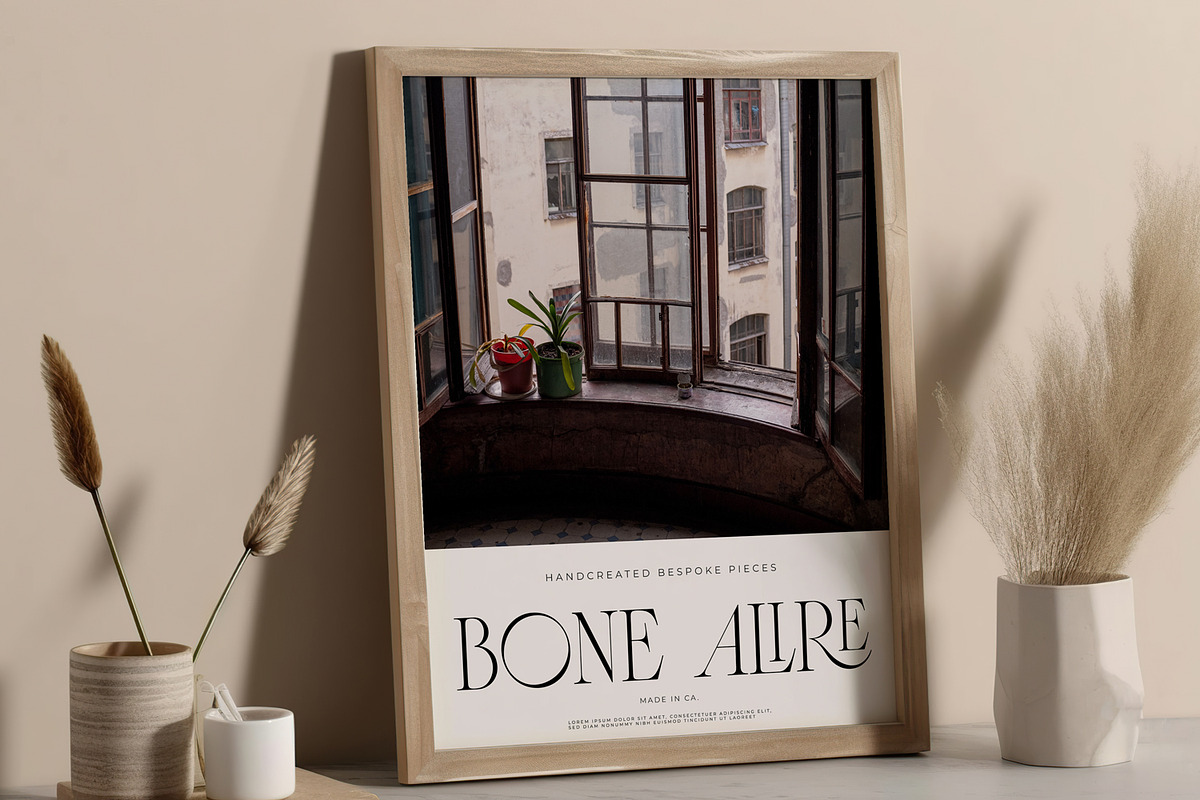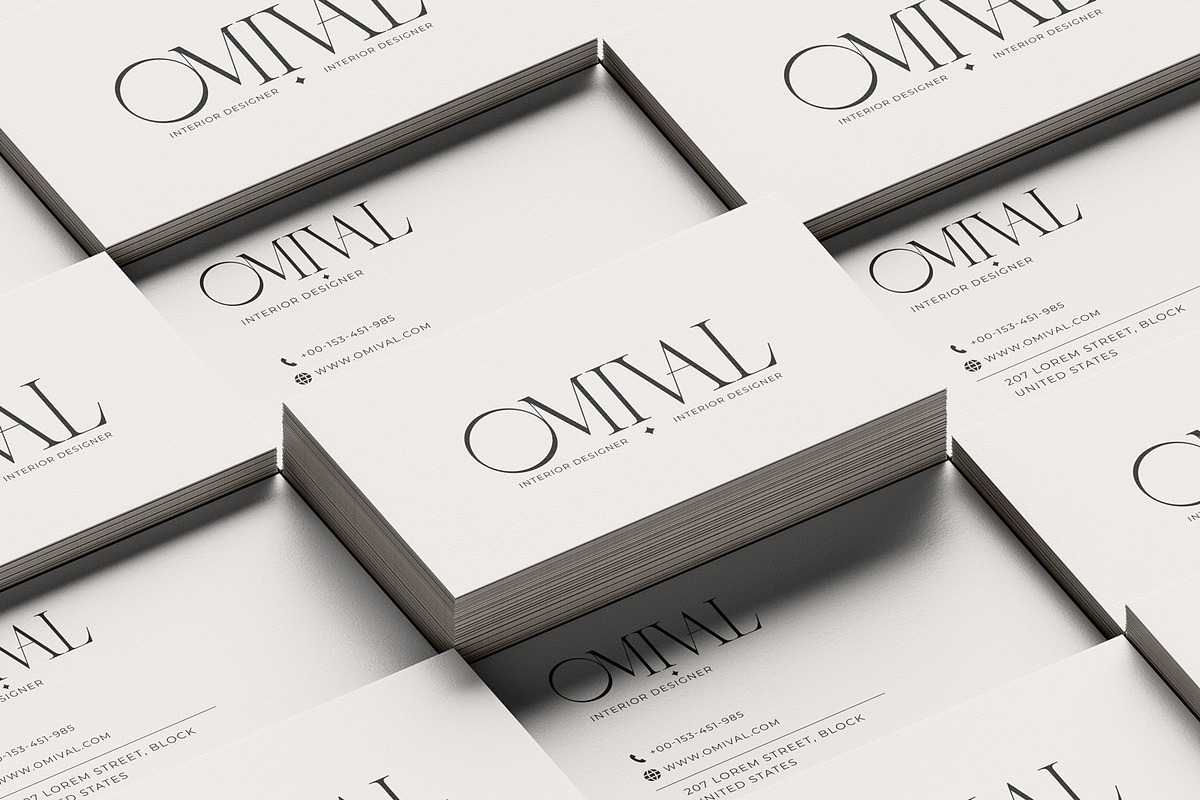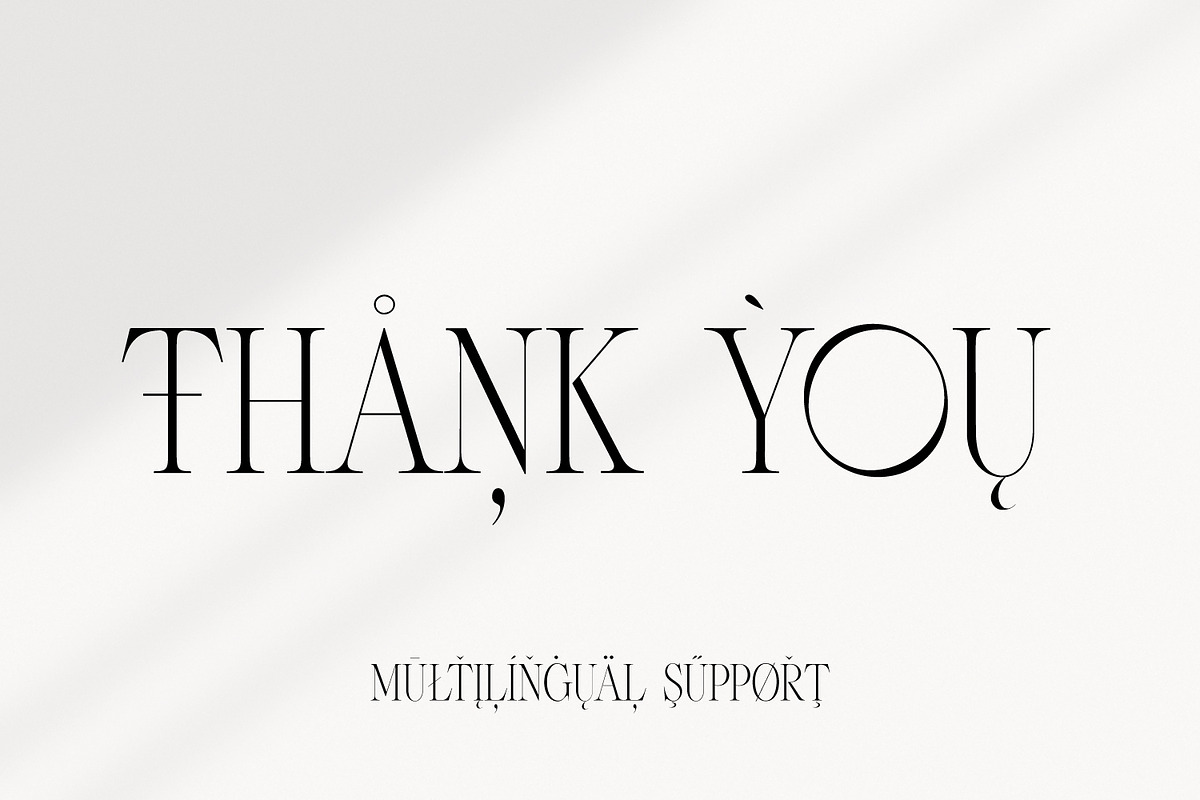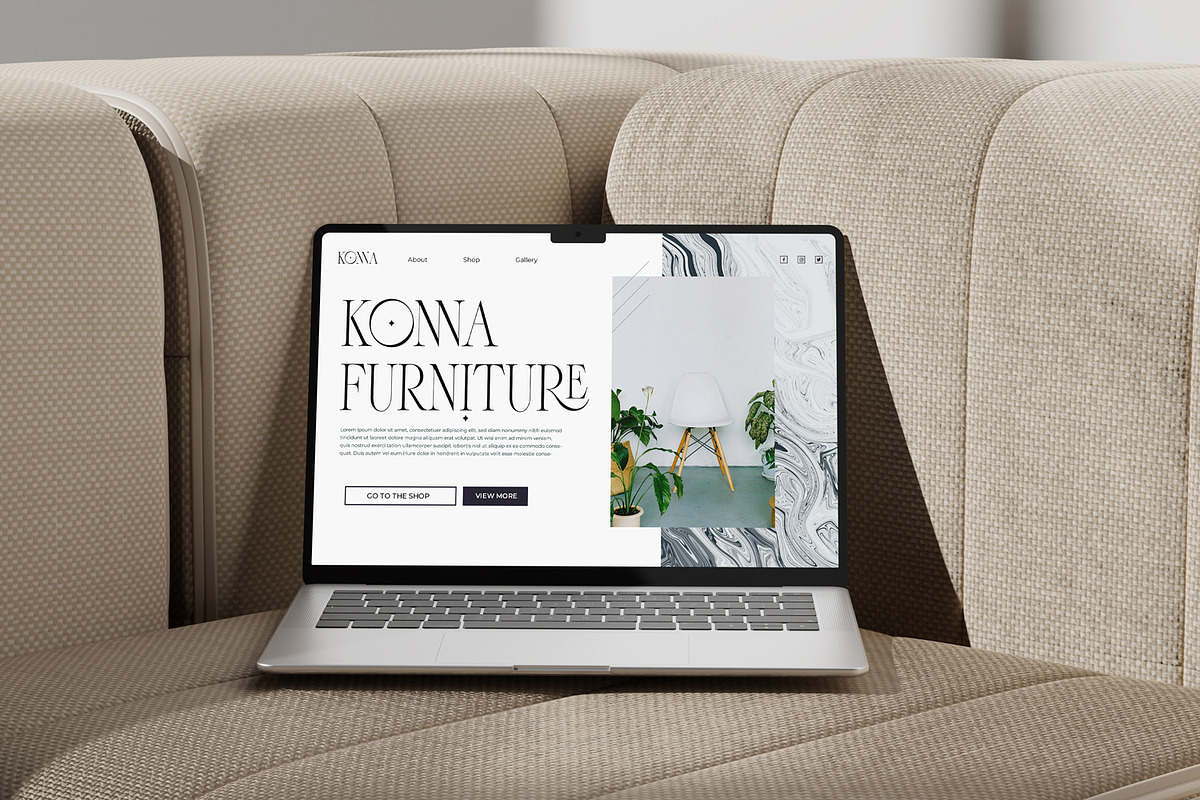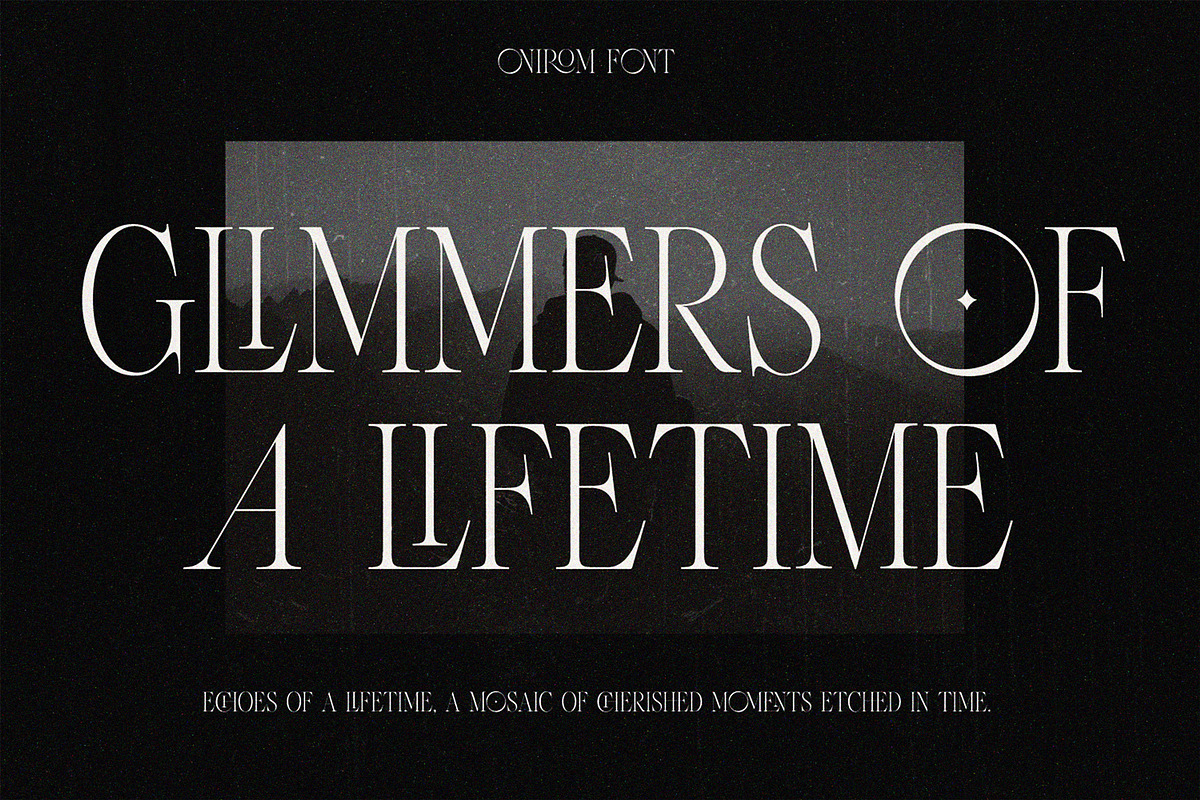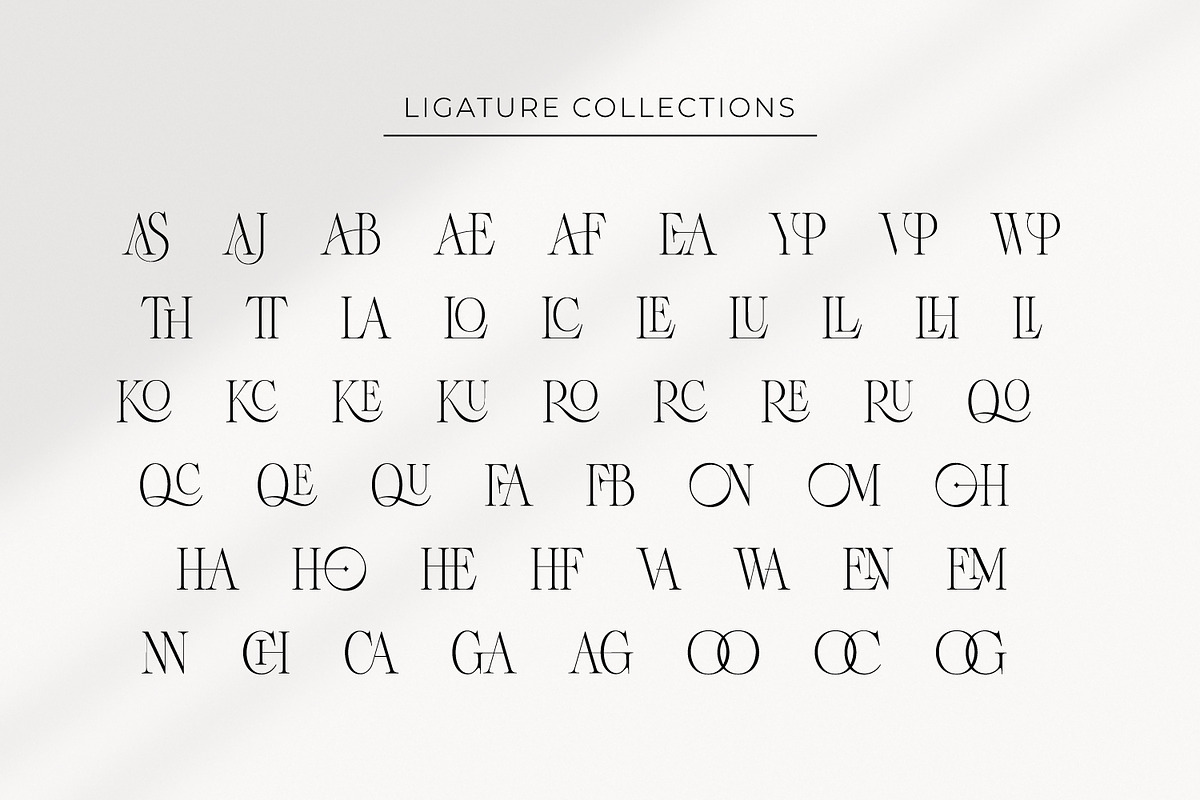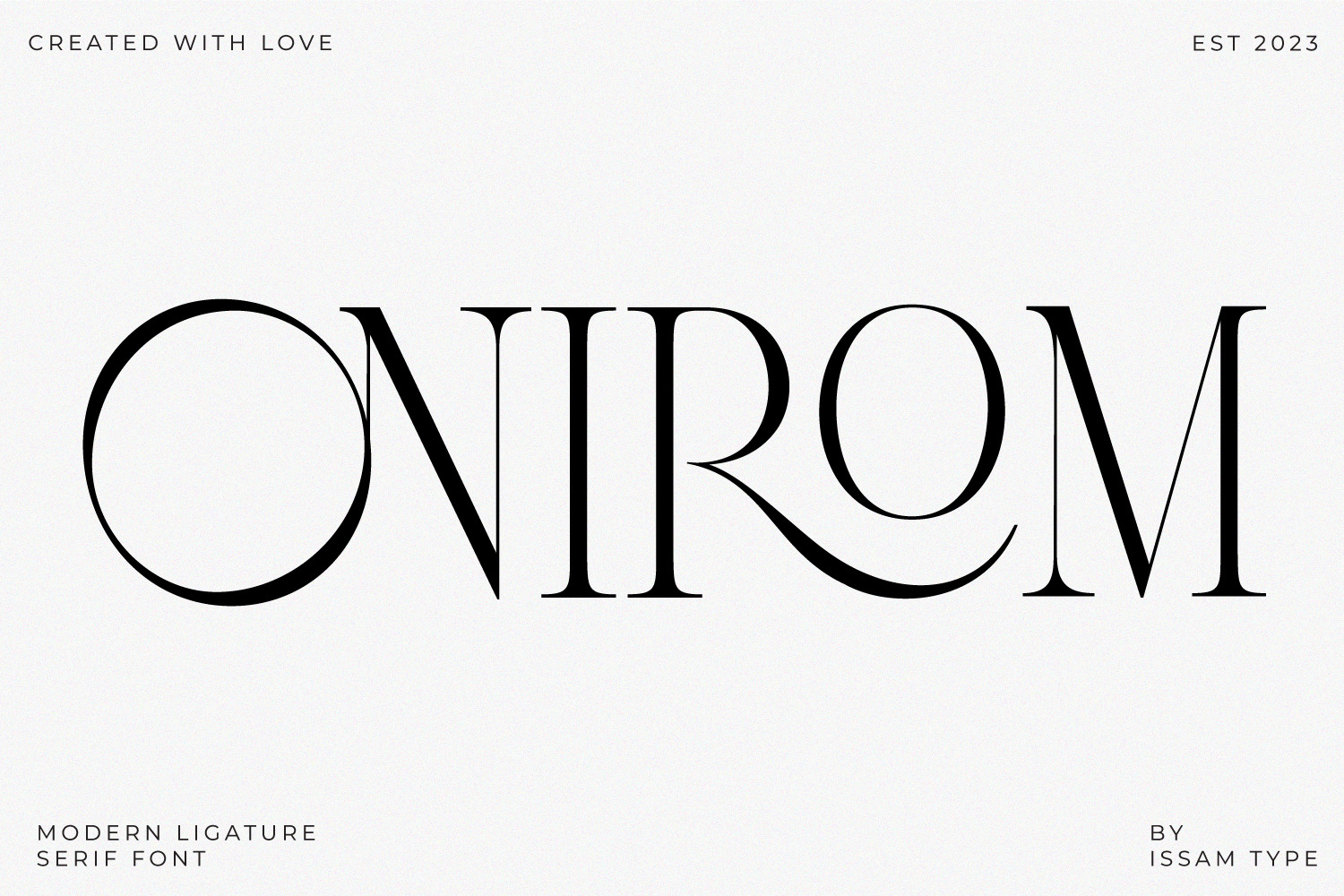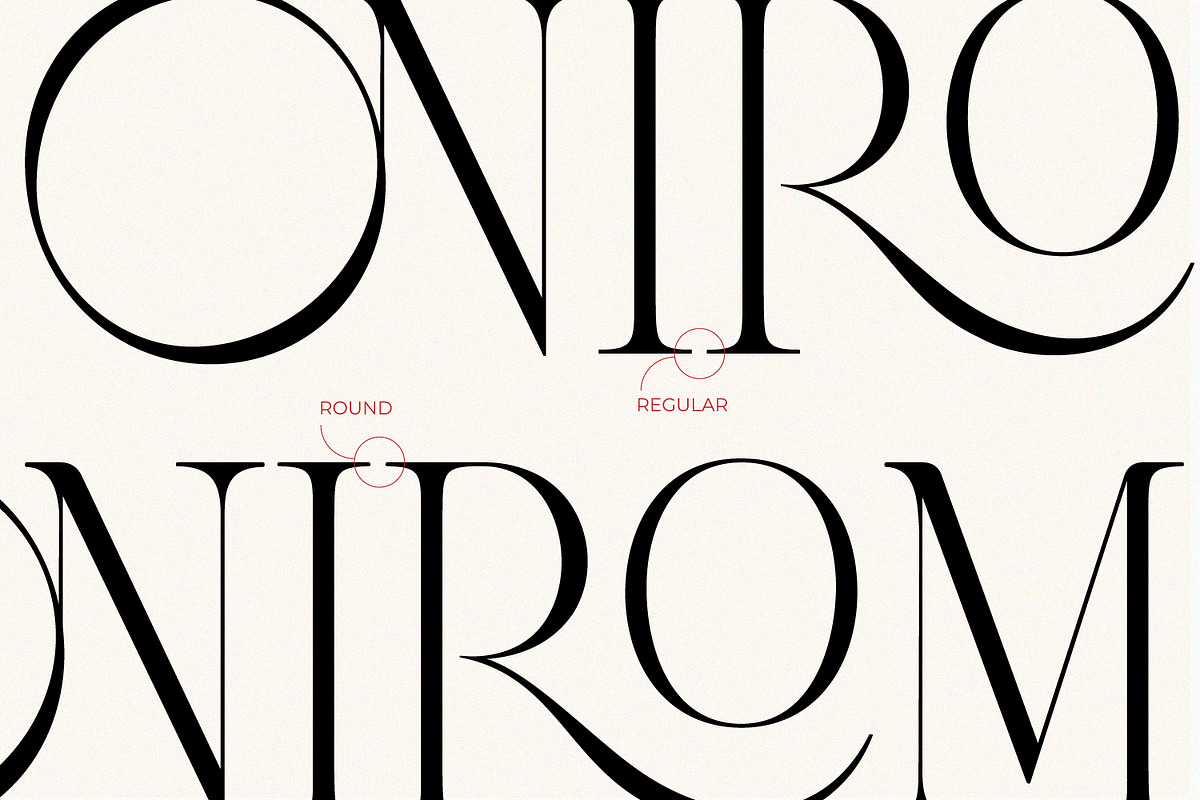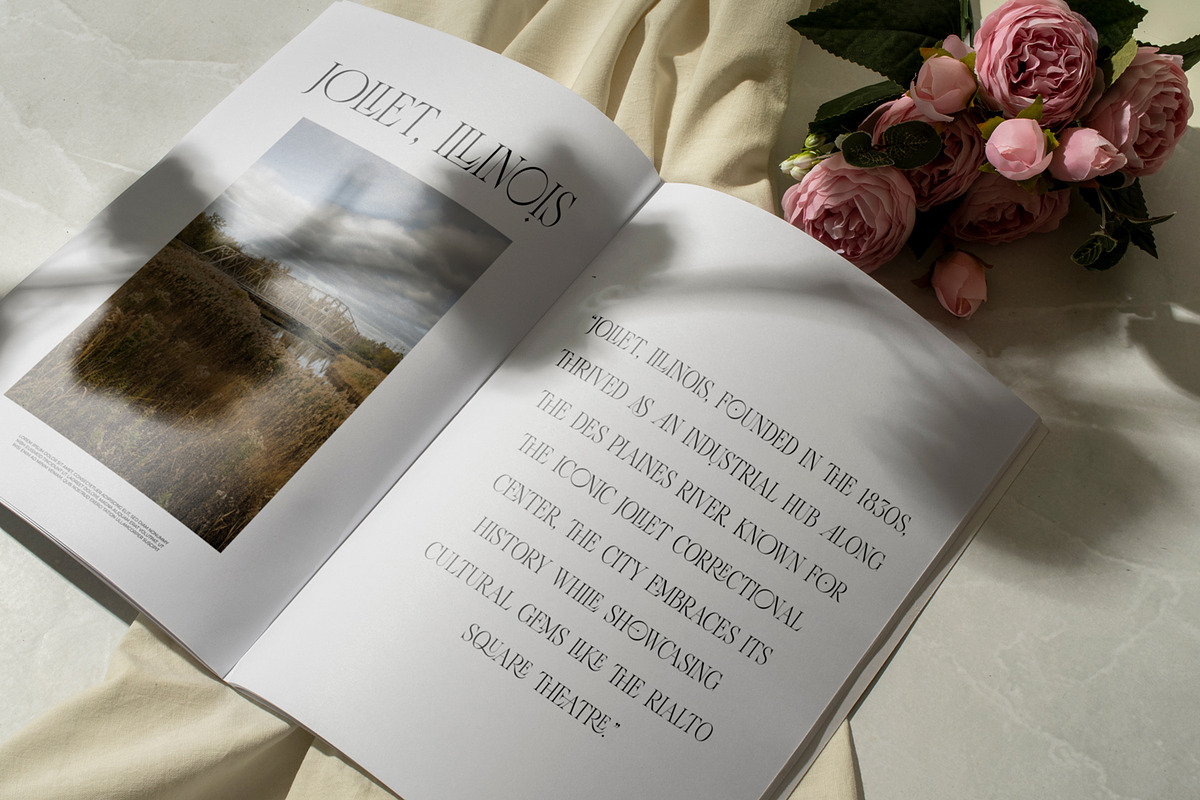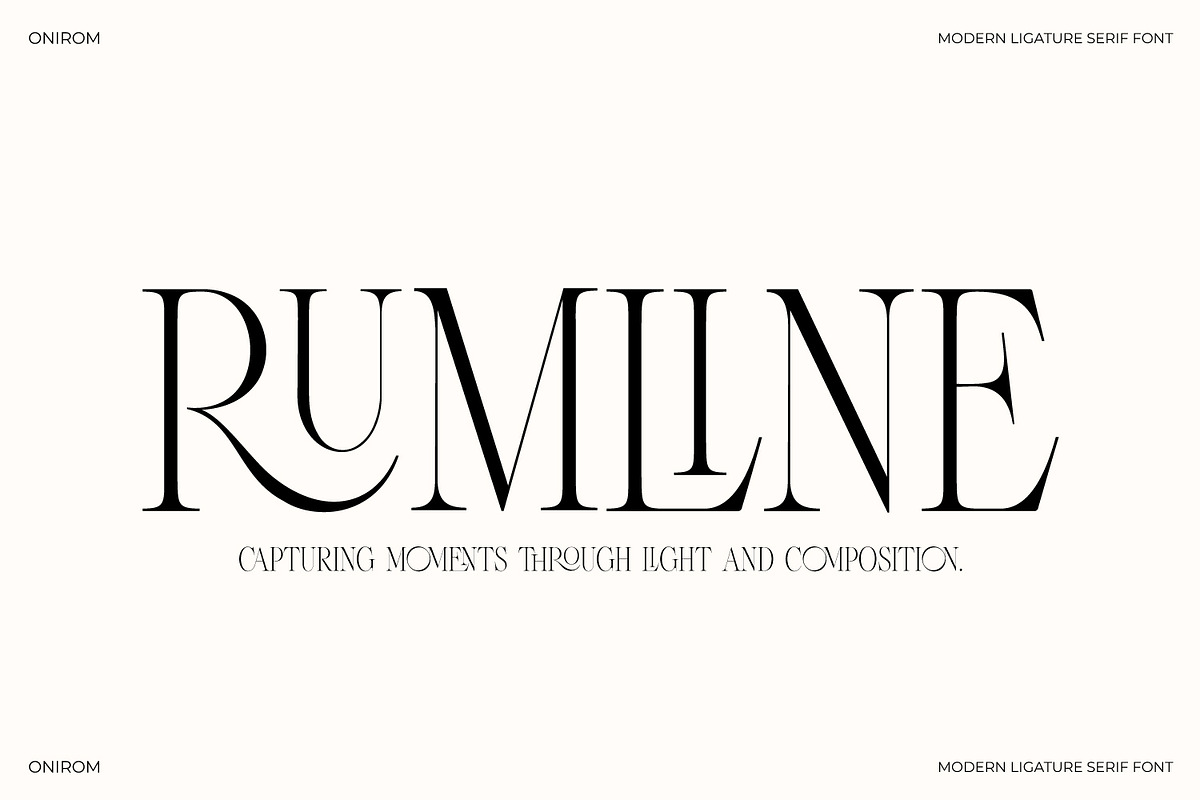
Onirom - Modern ligature serif font
Onirom is a Modern ligature serif font comes with joining ligatures that give it a fancy and unique style. This awesome font is perfect for branding, logos, invitation, watermark and so much more.
Onirom typeface comes with regular and round font styles. Uppercase letters, numbers, punctuation, ligatures, alternates and multilingual support.
OpenType Features:
Kerning
Stylistic Sets